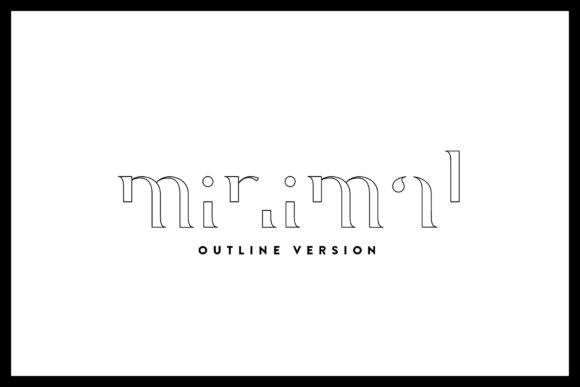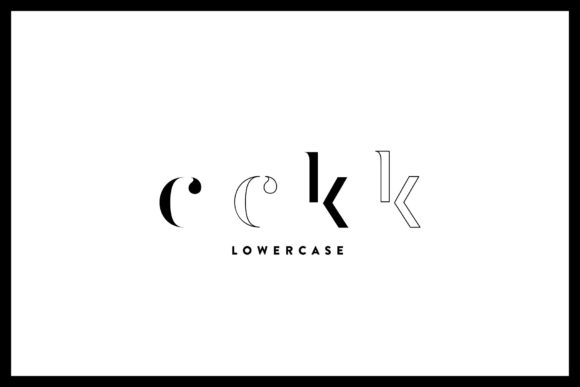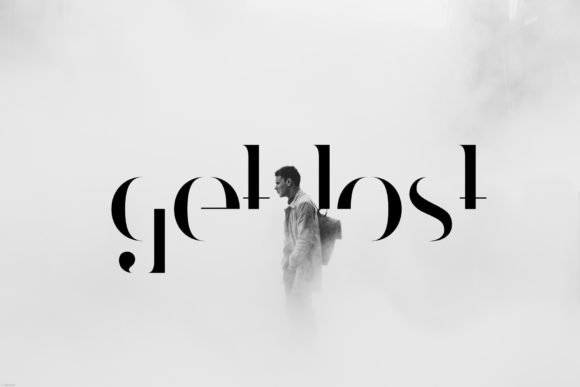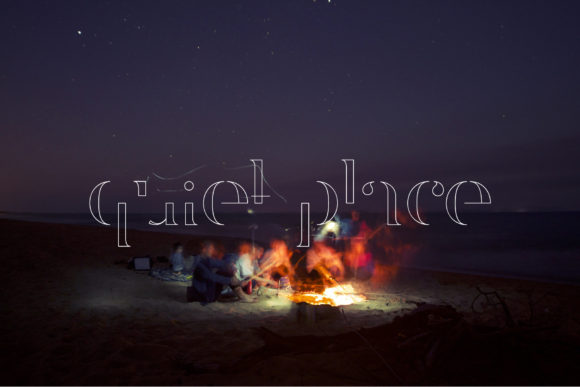
Introducing Breathy Font: The Mysterious and Modern Display Font
Are you tired of using the same old fonts for your creative projects? Look no further! Breathy Font is here to revolutionize the way you approach typography. This clean and modern display font features unfinished characters that give it a mysterious and intriguing look. In this article, we’ll dive into the world of Breathy Font and explore how it can elevate your designs and make them stand out.
The Concept Behind Breathy Font
Breathy Font is a unique and creative take on traditional typography. Its design is characterized by incomplete or “breathy” characters, which give it a sense of mystery and allure. This font is perfect for designers and crafters who want to add a touch of elegance and sophistication to their work. Whether you’re working on a logo, a poster, or a website, Breathy Font is sure to make your project stand out.
Key Features of Breathy Font
- Clean and Modern Design: Breathy Font features a sleek and contemporary design that’s perfect for modern designs.
- Unfinished Characters: The font’s incomplete characters give it a mysterious and intriguing look that’s sure to capture attention.
- Display Font: Breathy Font is designed specifically for display purposes, making it perfect for headlines, titles, and other prominent text elements.
- Highly Versatile: This font can be used for a wide range of creative projects, from logos and posters to websites and social media graphics.
How to Use Breathy Font in Your Designs
Breathy Font is incredibly easy to use and can be incorporated into your designs in a variety of ways. Here are a few ideas to get you started:
- Logos and Branding: Use Breathy Font to create a unique and memorable logo that sets your brand apart.
- Posters and Flyers: Add a touch of elegance and sophistication to your posters and flyers with Breathy Font.
- Websites and Social Media: Use Breathy Font to create eye-catching headlines and titles for your website or social media graphics.
- Invitations and Stationery: Add a touch of mystery and allure to your invitations and stationery with Breathy Font.
Tips for Getting the Most Out of Breathy Font
To get the most out of Breathy Font, here are a few tips to keep in mind:
- Experiment with Different Sizes: Breathy Font looks great in a variety of sizes, so don’t be afraid to experiment and find the perfect size for your design.
- Play with Color: Breathy Font looks great in a range of colors, so try experimenting with different hues and shades to find the perfect look for your design.
- Combine with Other Fonts: Breathy Font pairs well with a range of other fonts, so try combining it with other fonts to create a unique and interesting look.
Breathy Font is a game-changing display font that’s sure to elevate your designs and make them stand out. With its clean and modern design, unfinished characters, and highly versatile nature, this font is perfect for designers and crafters who want to add a touch of elegance and sophistication to their work. Whether you’re working on a logo, poster, website, or social media graphic, Breathy Font is the perfect choice. So why wait? Download Breathy Font today and start creating stunning designs that capture attention!